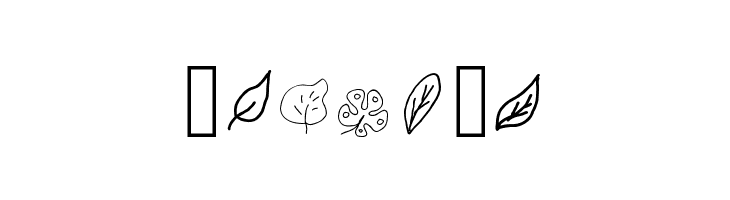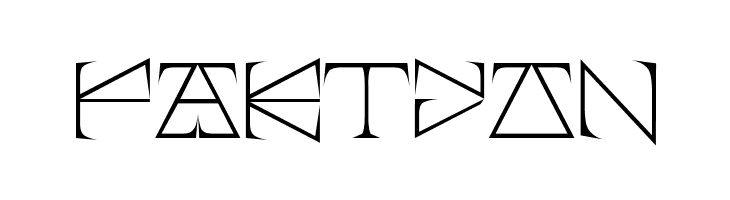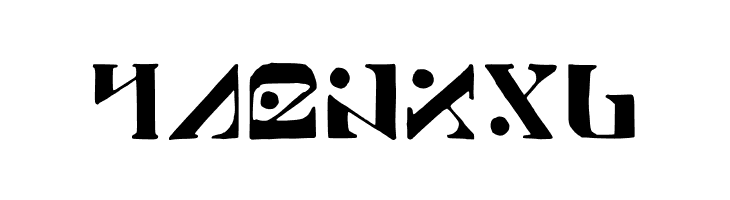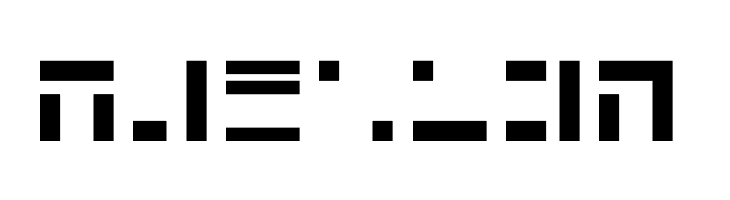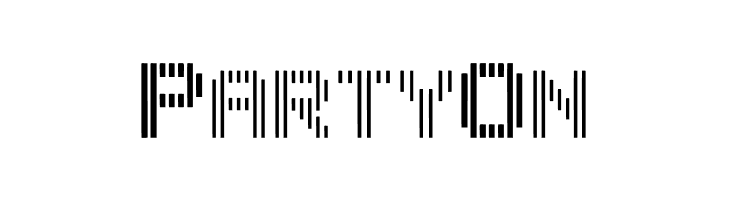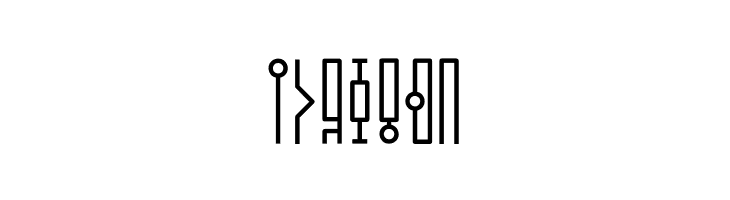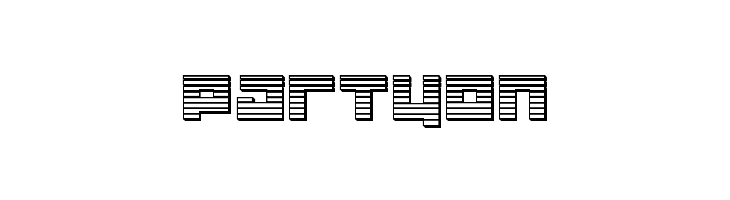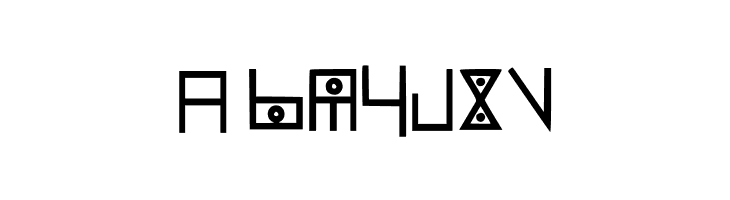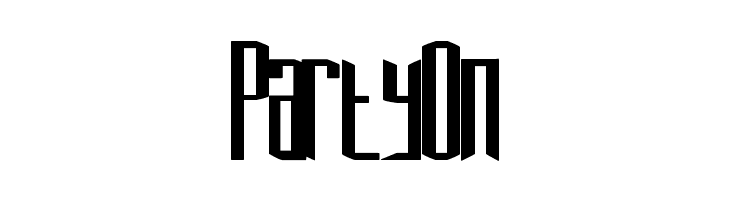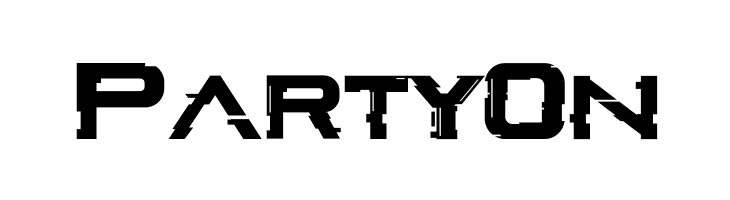
Hand-drawn botanical icon font with playful leaf and plant illustrations.
A decorative, geometric font with sharp angles and a futuristic style.
A decorative and abstract font with geometric and futuristic elements.
A geometric, abstract font with blocky, angular shapes and a futuristic aesthetic.
A segmented, modern font with a digital, pixelated appearance.
A decorative, geometric font with a futuristic and cryptic design.
A bold, futuristic font with a striped, geometric design.
A decorative, geometric font with a cryptic and futuristic design.
A bold, condensed font with elongated, geometric letterforms.
A glitch-inspired, bold, and angular font with a digital, futuristic style.